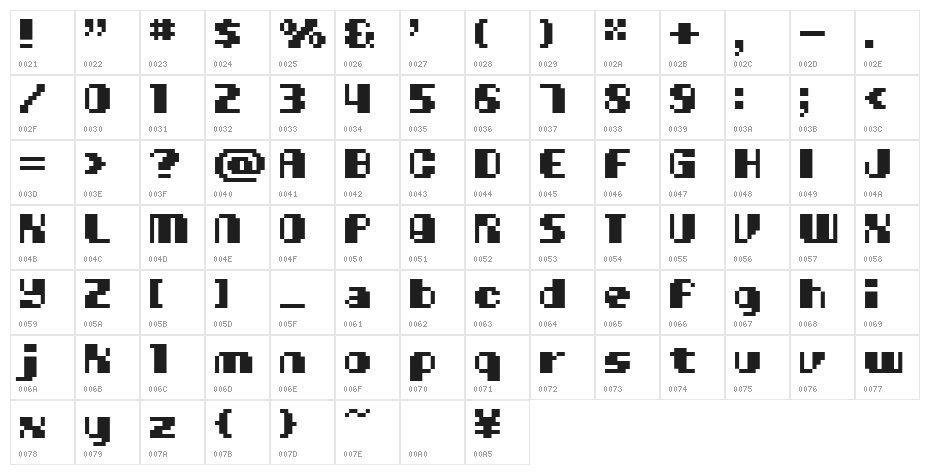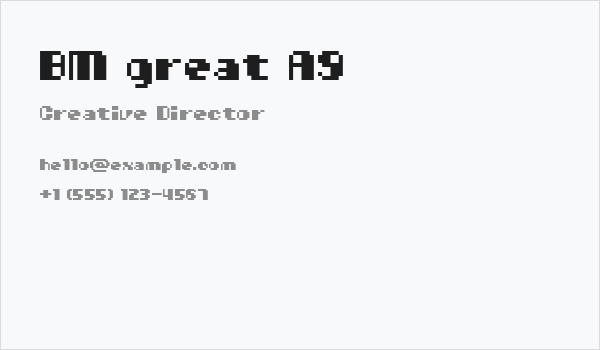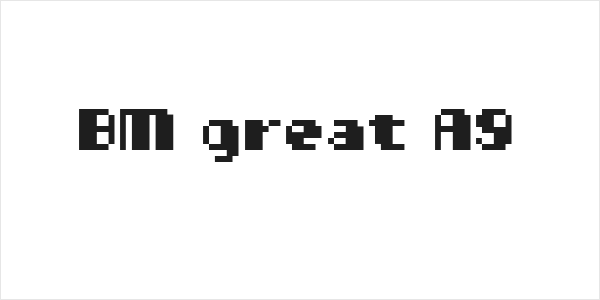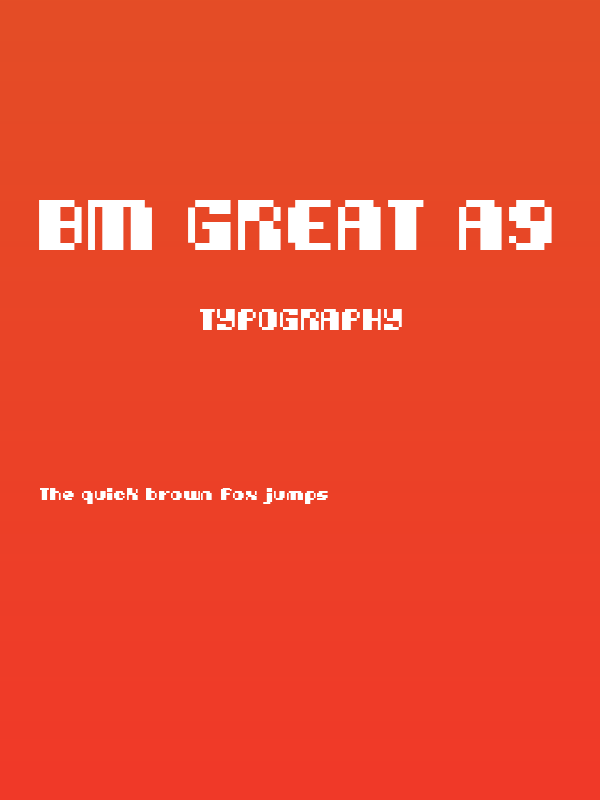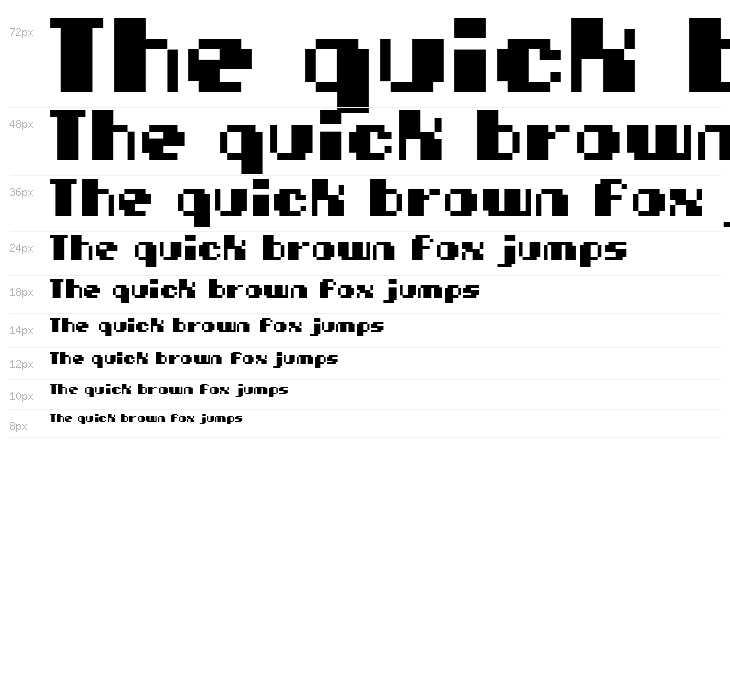
BM great A9 Font
BM great A9 Description
This font exhibits a bold, pixelated style reminiscent of early digital and video game aesthetics. Each character is constructed with a blocky, grid-like appearance, giving it a distinctly retro and technological feel. The uppercase and lowercase letters maintain a consistent height, contributing to a uniform and cohesive look. The numerals and special characters follow the same pixelated design, ensuring visual harmony across all elements. This font's geometric and angular nature makes it stand out, capturing attention with its nostalgic charm.
| Overall Style | Retro, Digital |
| Use Case | Headlines, Logos, Digital Art |
| Proposed Projects | Ideal for video game designs, retro-themed posters, digital art projects, and any creative work that seeks to evoke a sense of nostalgia for early computing and gaming. |